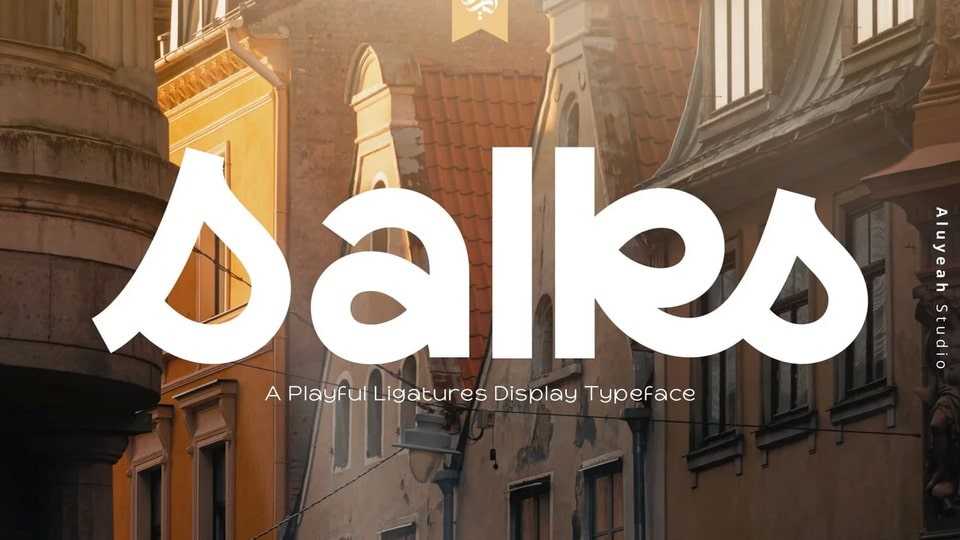
Download Salks font, a playful and joyful display typeface that will add a touch of happiness to your creative projects. Experience the happiness that Salks brings to your creative world with this delightful display typeface that guarantees smiles all around.
Designer: Aluyeah Studio